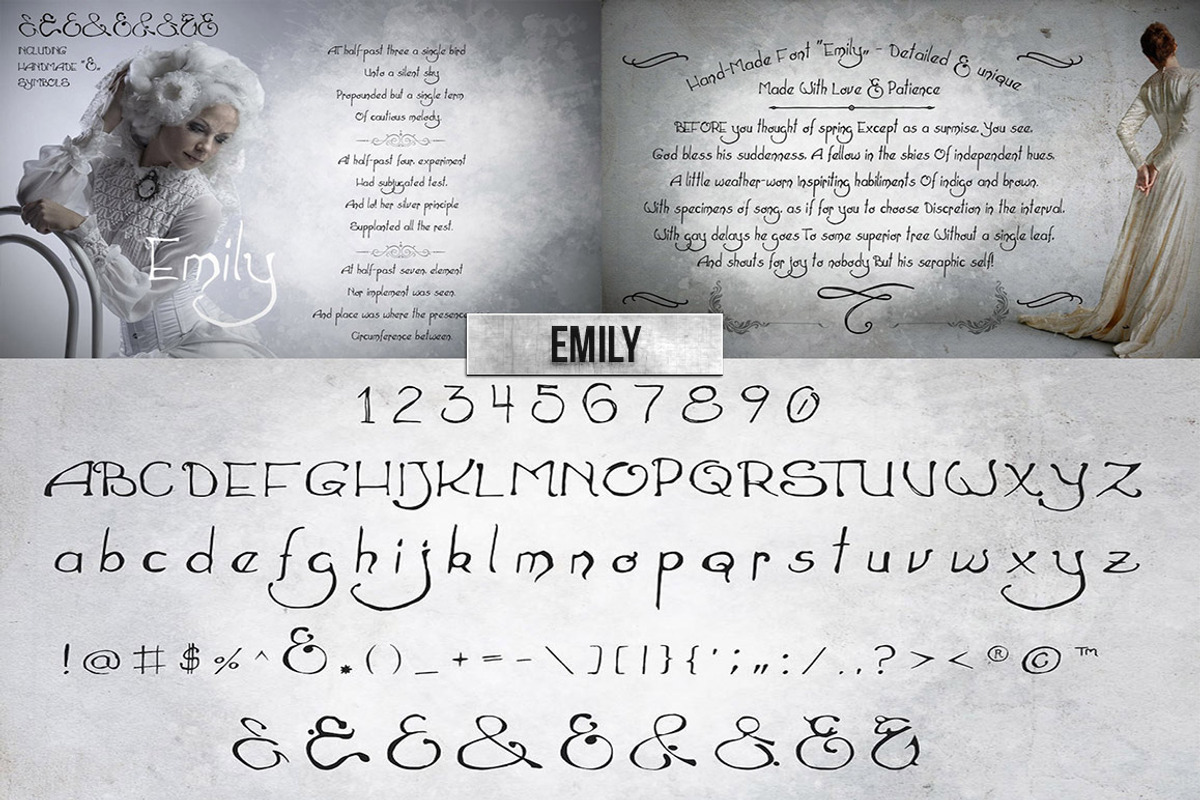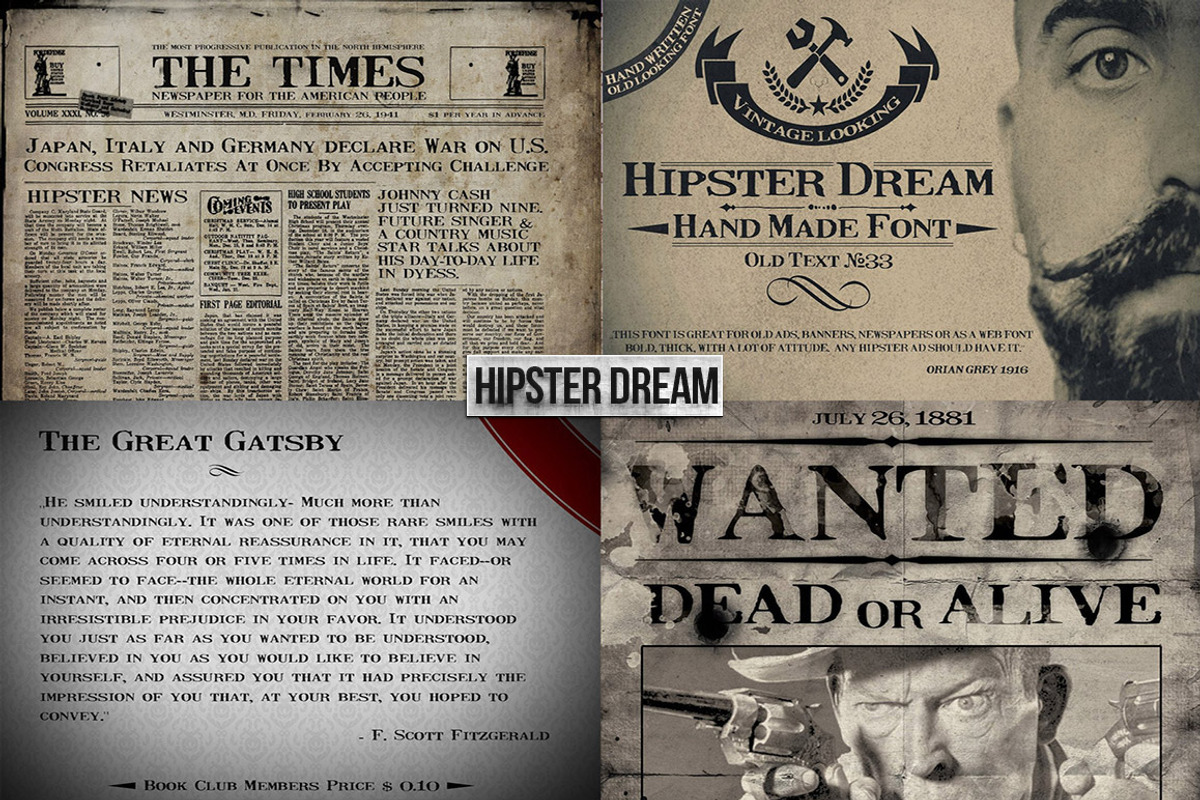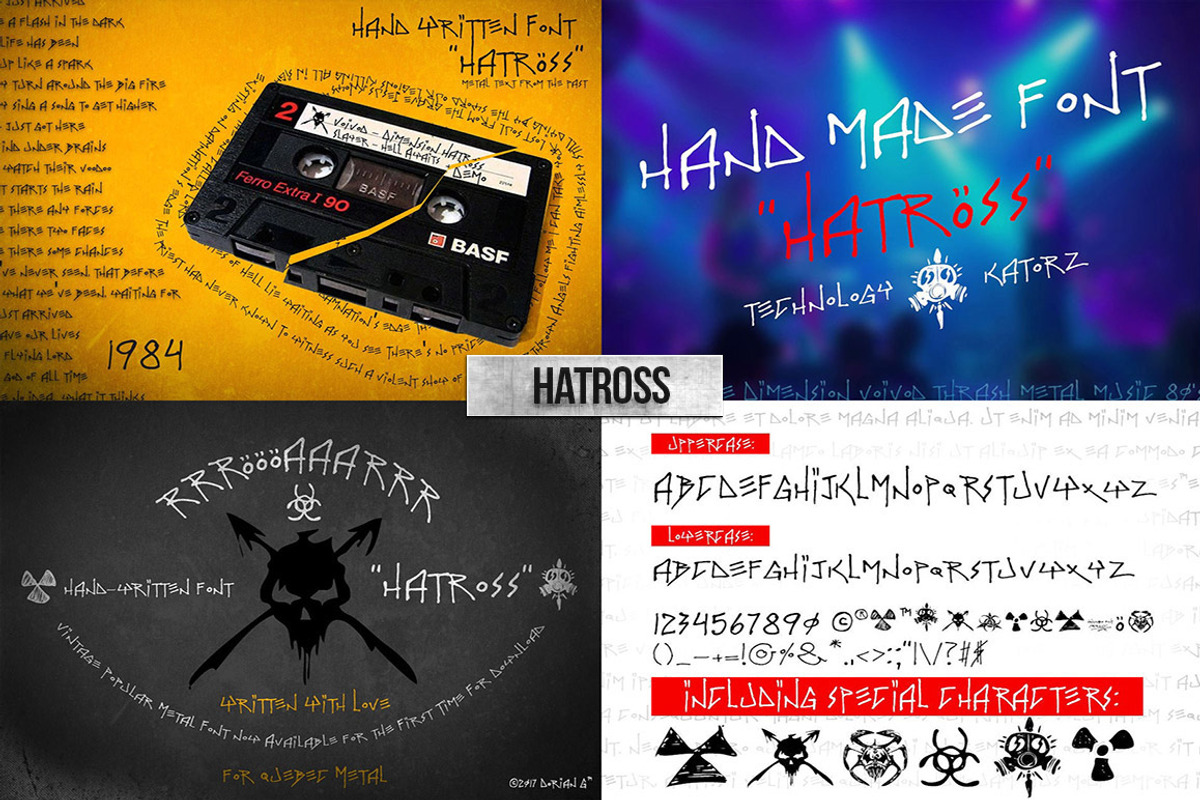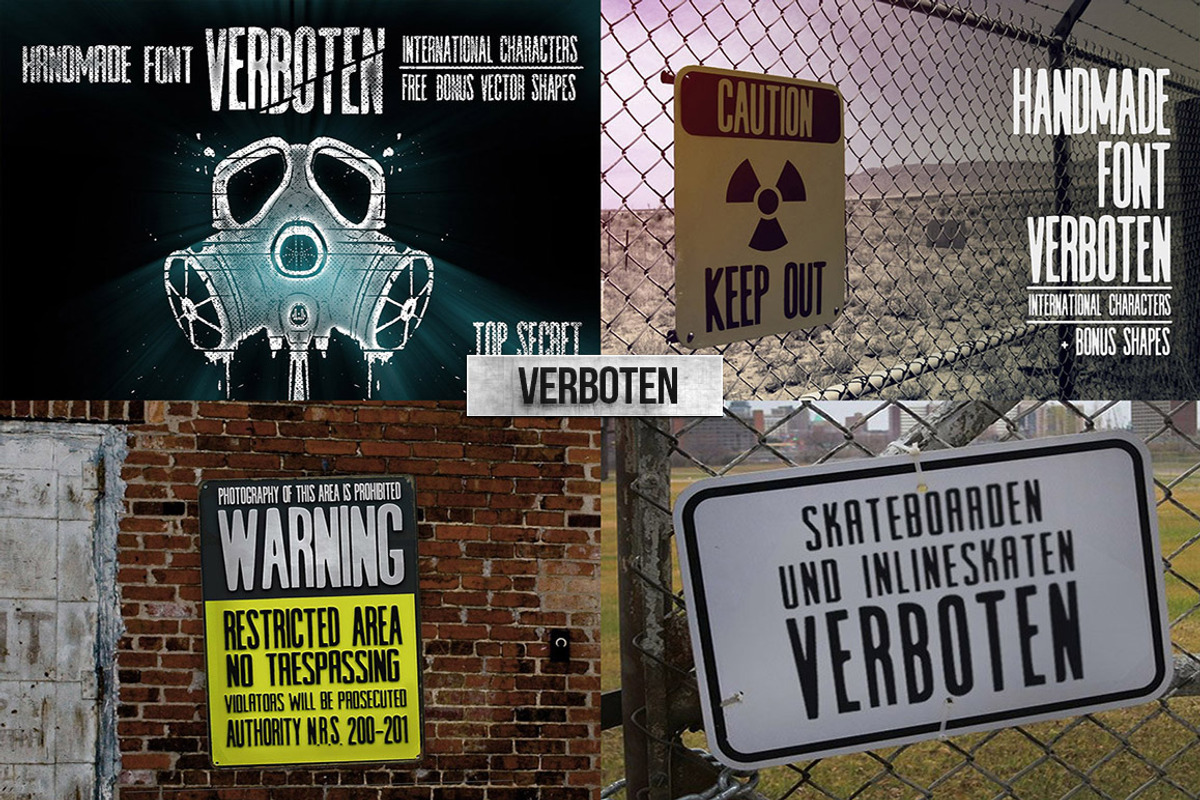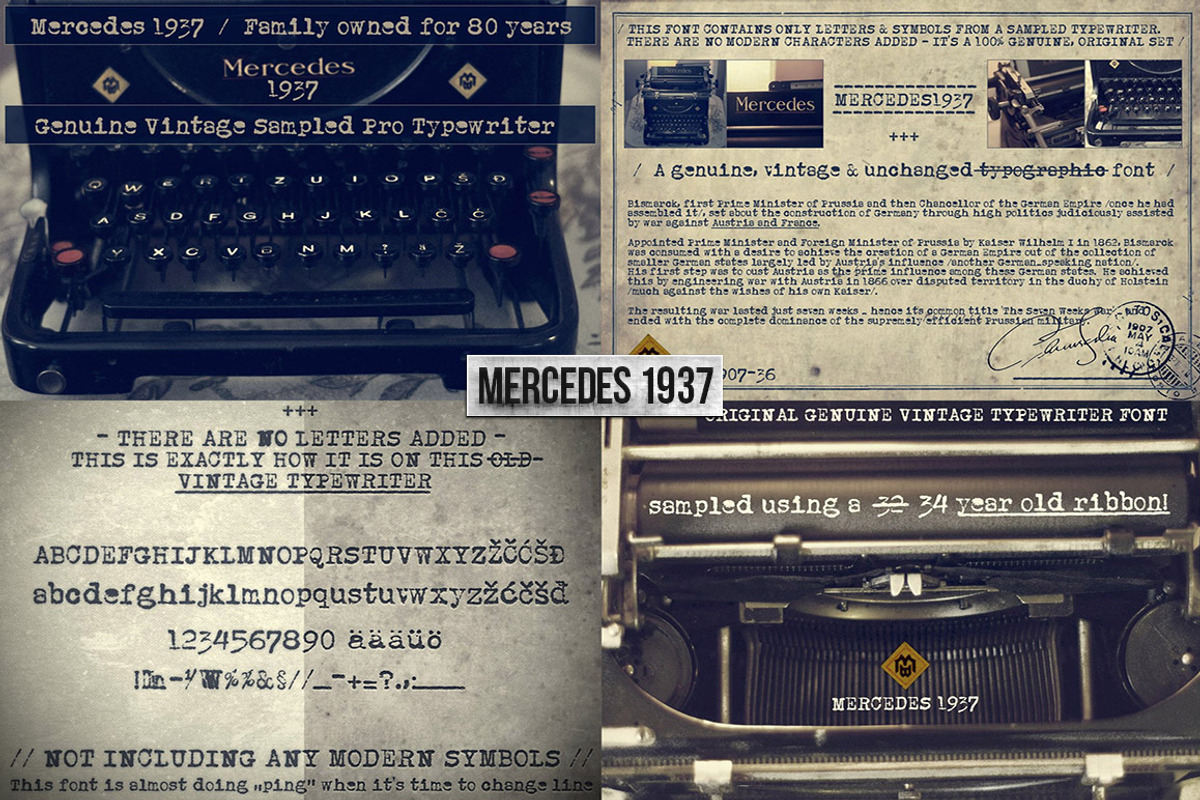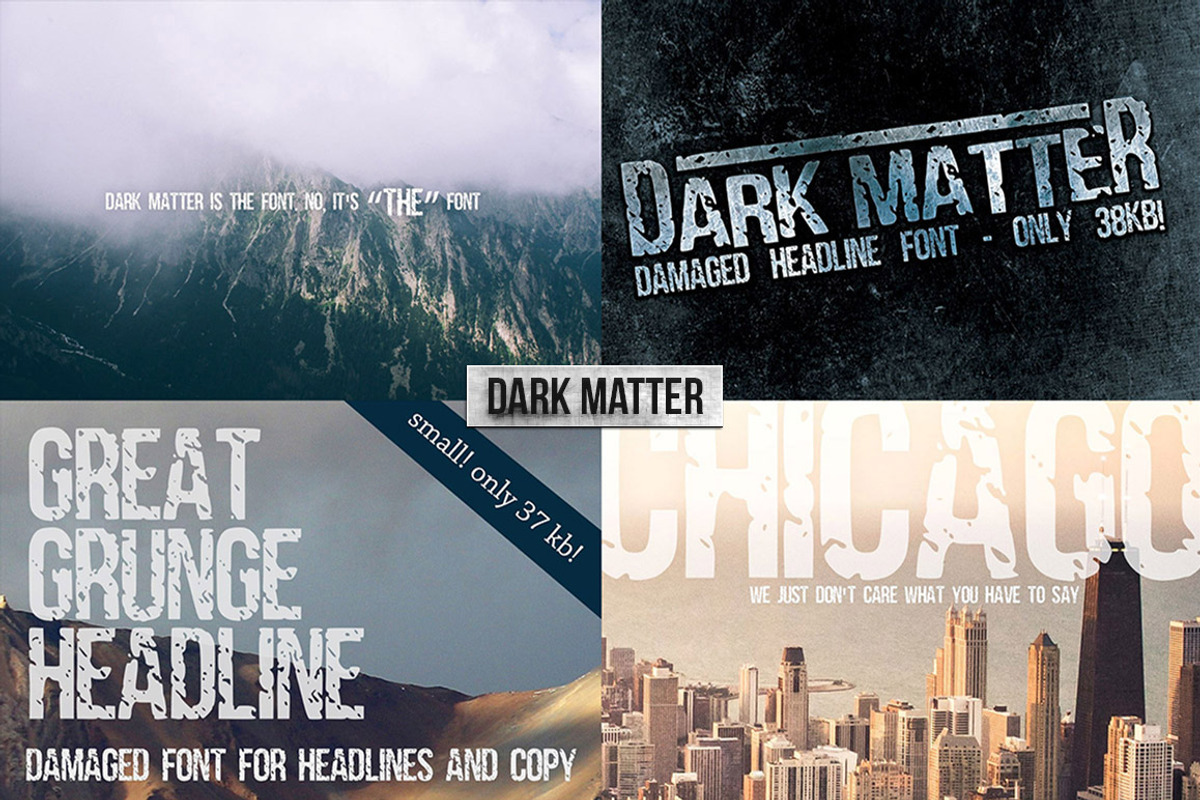
7 Handmade Fonts Bundle
This is the first time that we bundle some of the best of our custom grunge, rough, handmade fonts. And for a very low price. Included are: